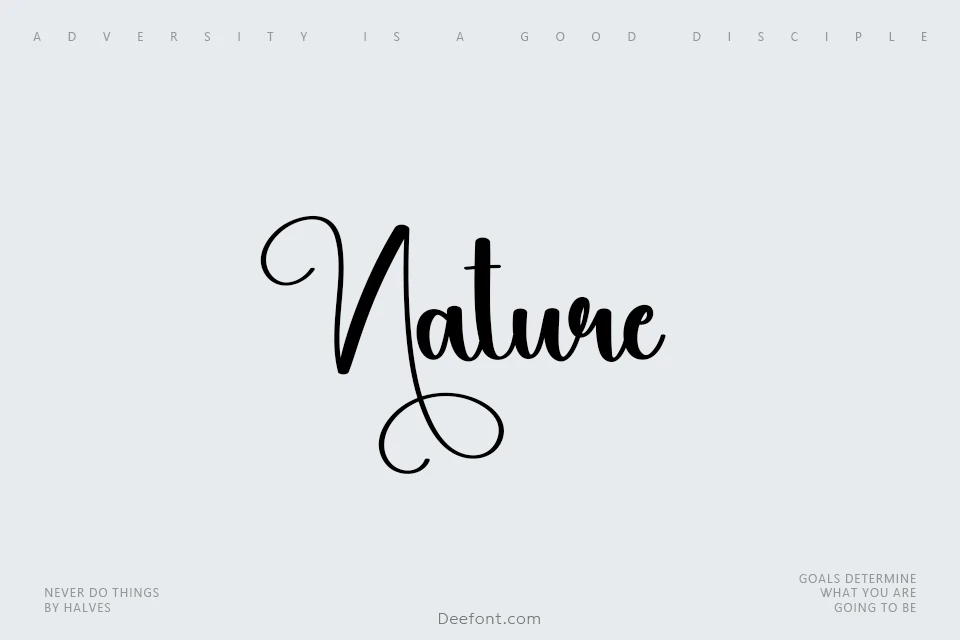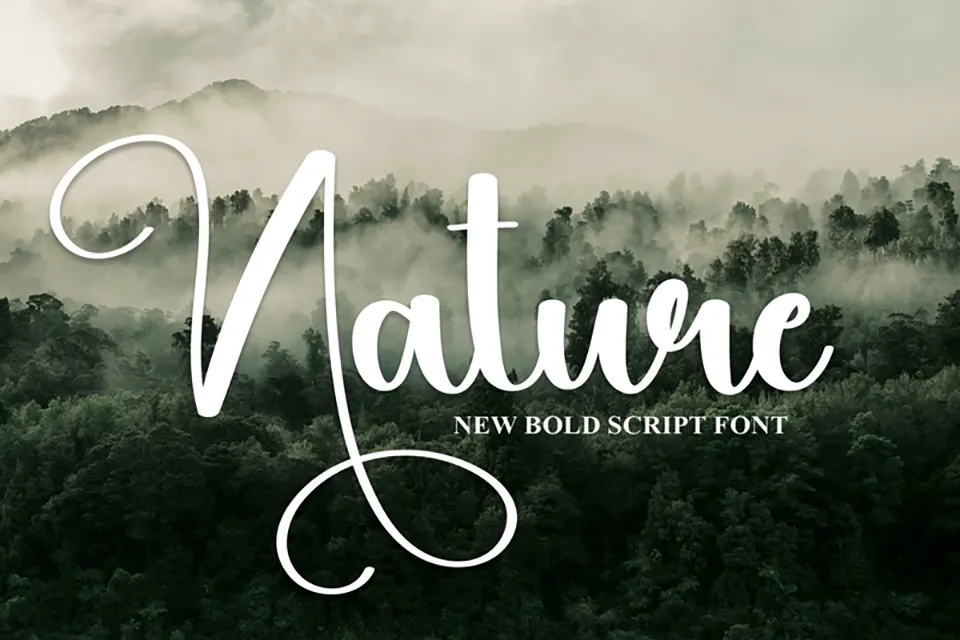
Nature Script Font
Nature Script Font is a beautiful and elegant handwritten script font featuring hearts for dots and stylish swashes. It radiates a romantic and expressive feeling, making it ideal for wedding designs, logos, invitations, social media posts, advertisements, product packaging, labels, photography, watermarks, stationery, and any project that requires a tasteful handwritten touch. With its smooth and varied baselines and unique fine lines, this font brings a personal and creative flair to your designs.